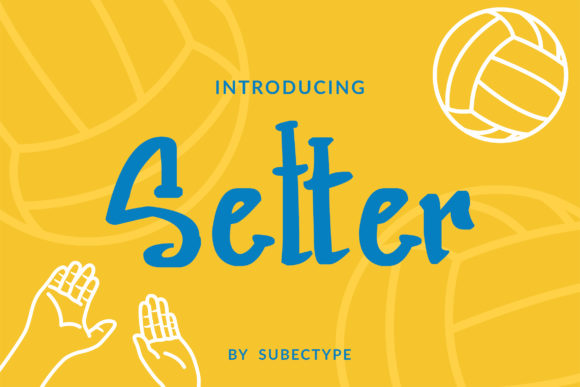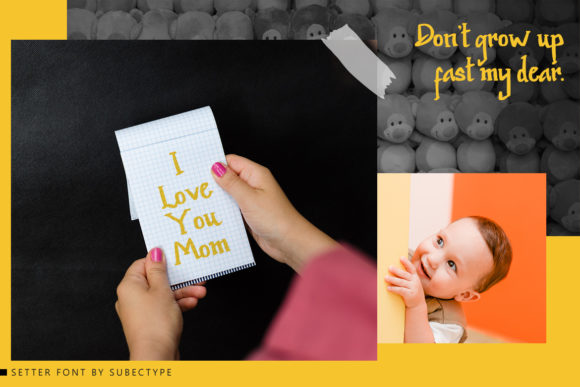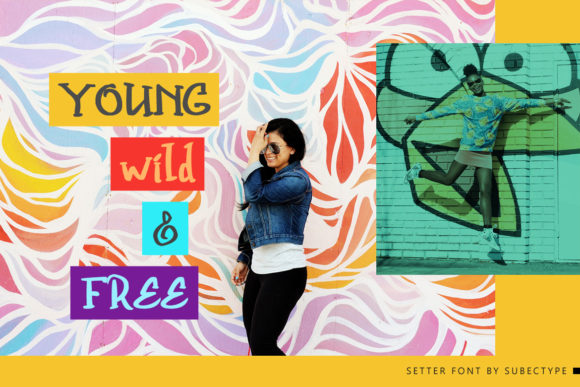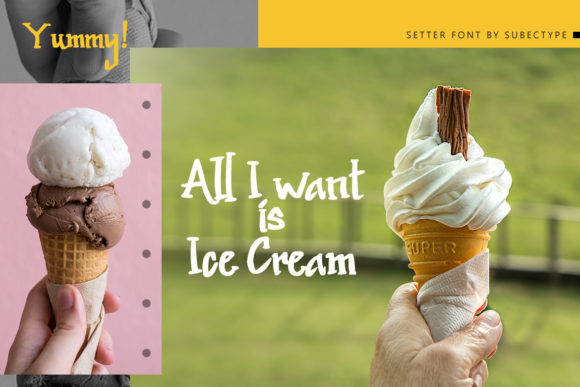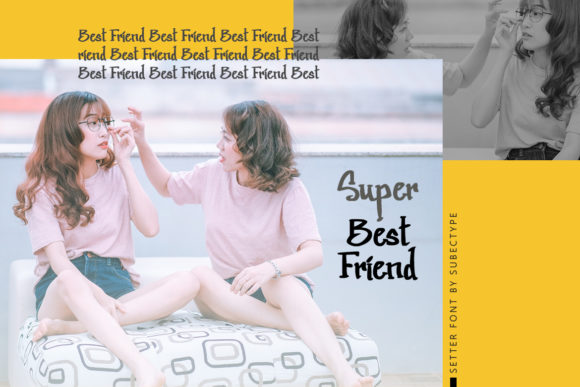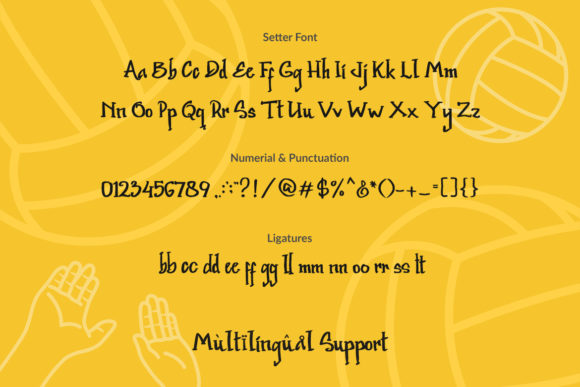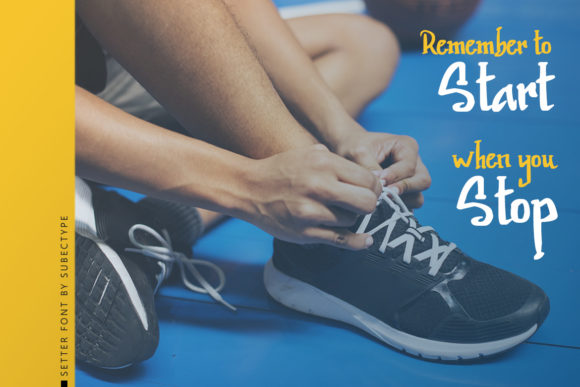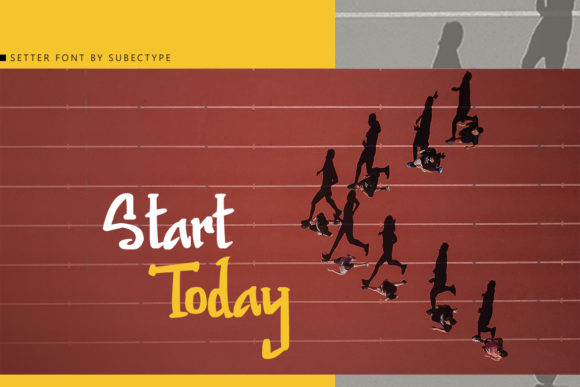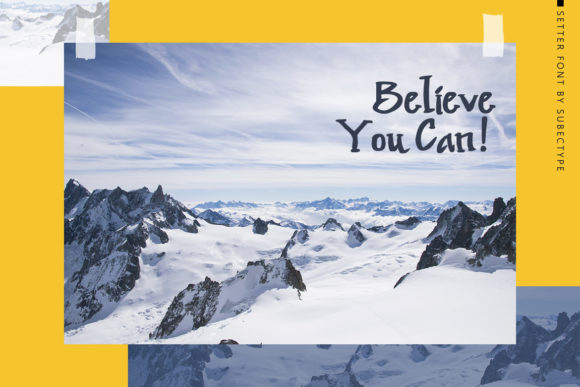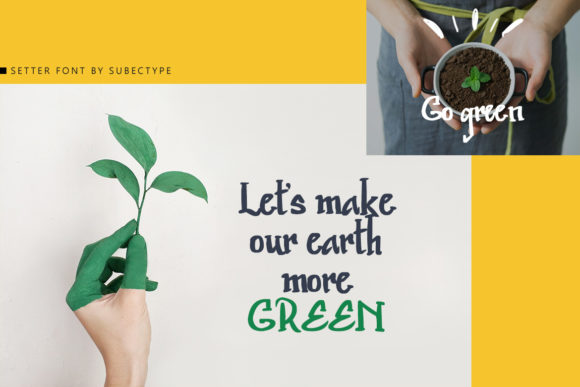
Setter Font
About Setter Font
The Setter has an energic, yet fun style. It can be applied in many design themes such as sports designs, children & youth designs, designs which are looking for a fun mood, and much more!